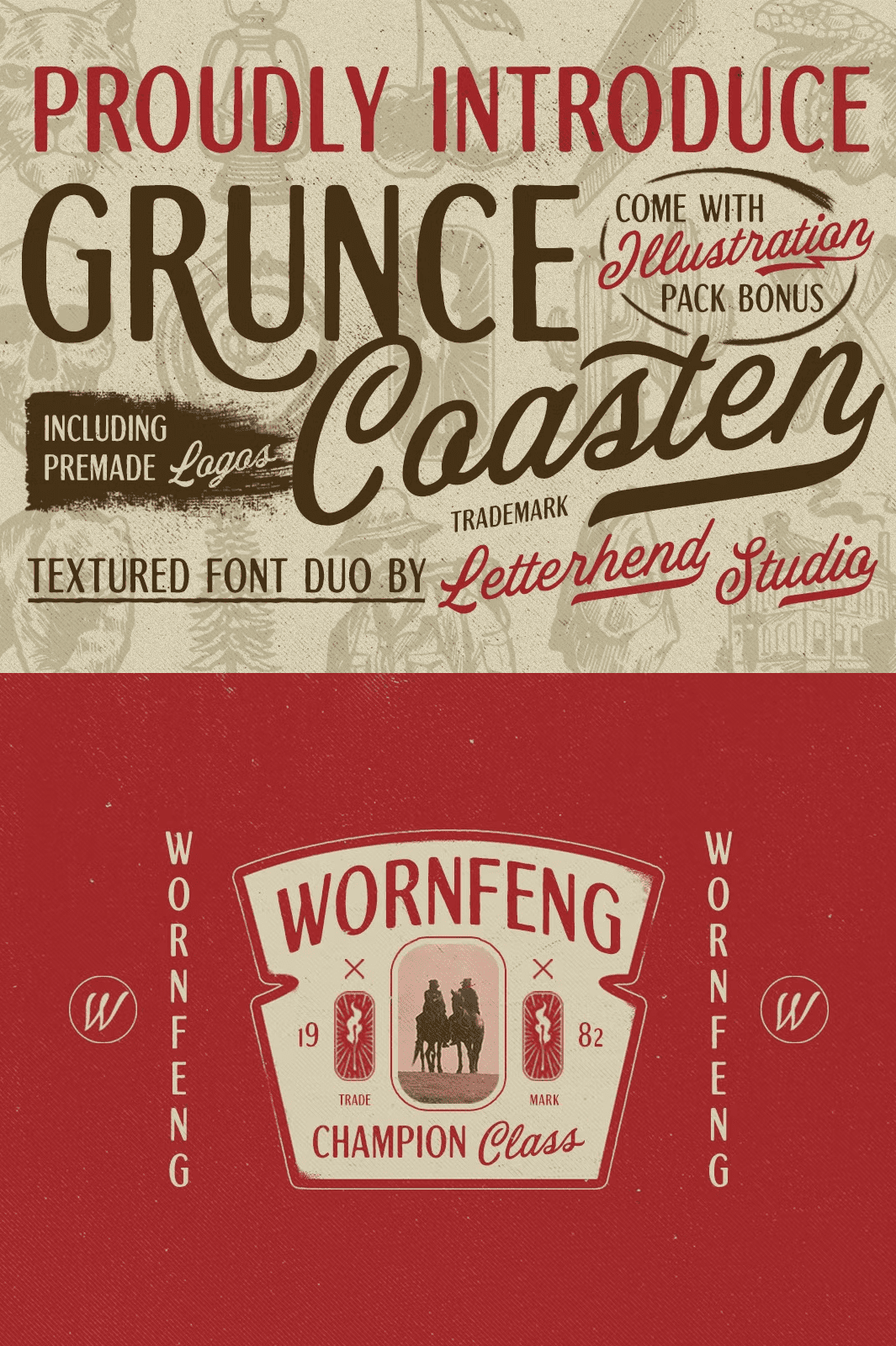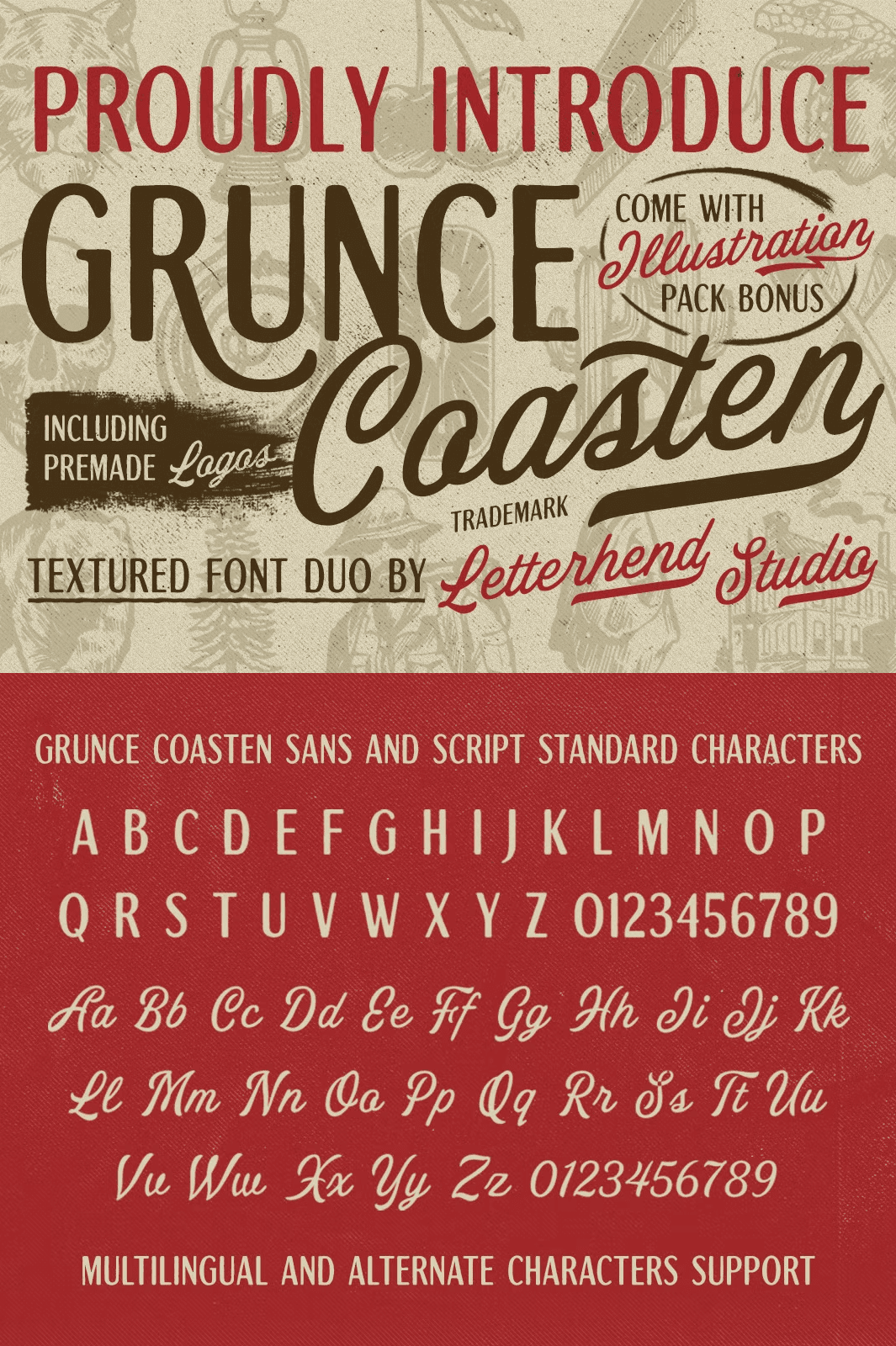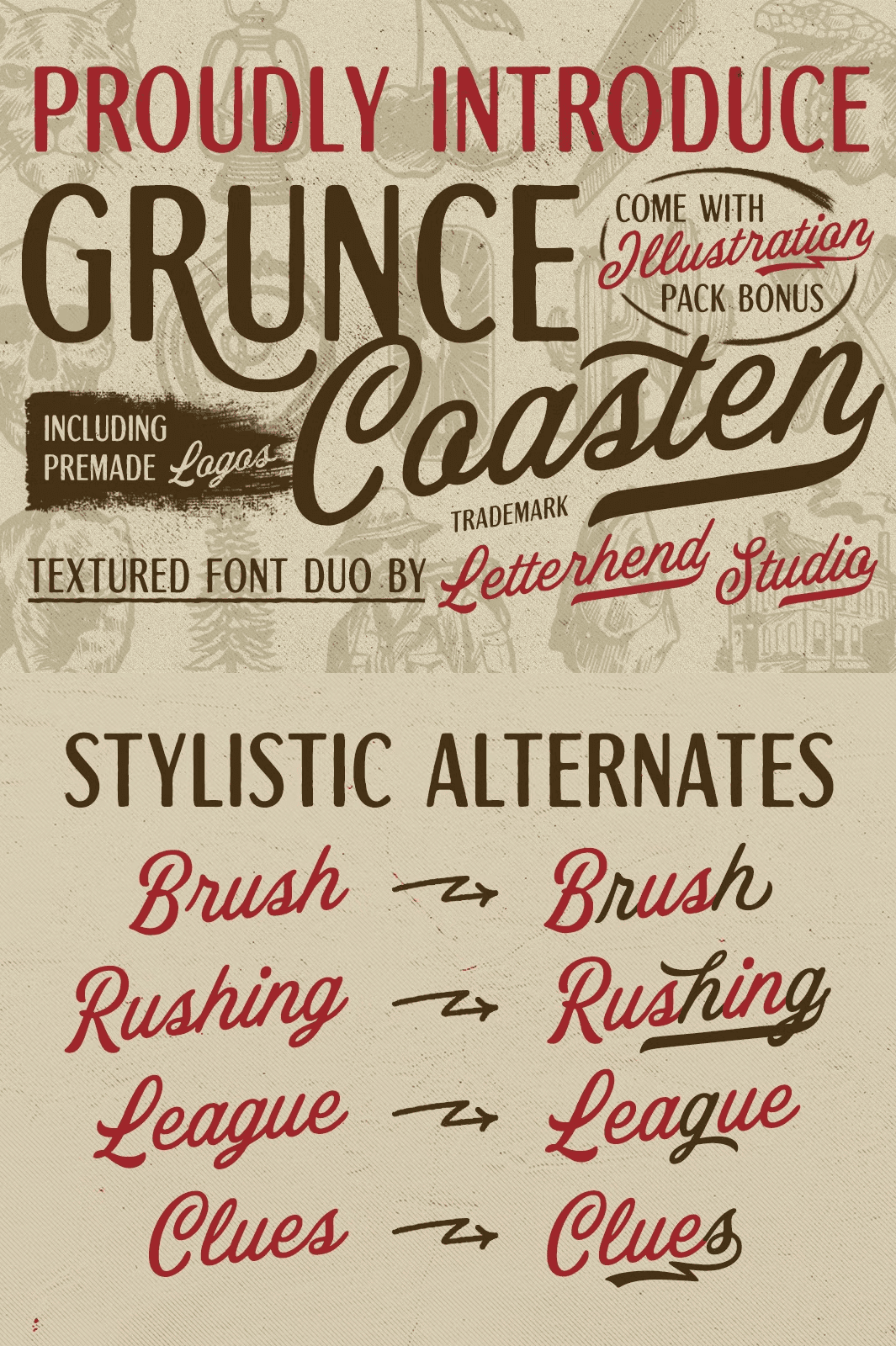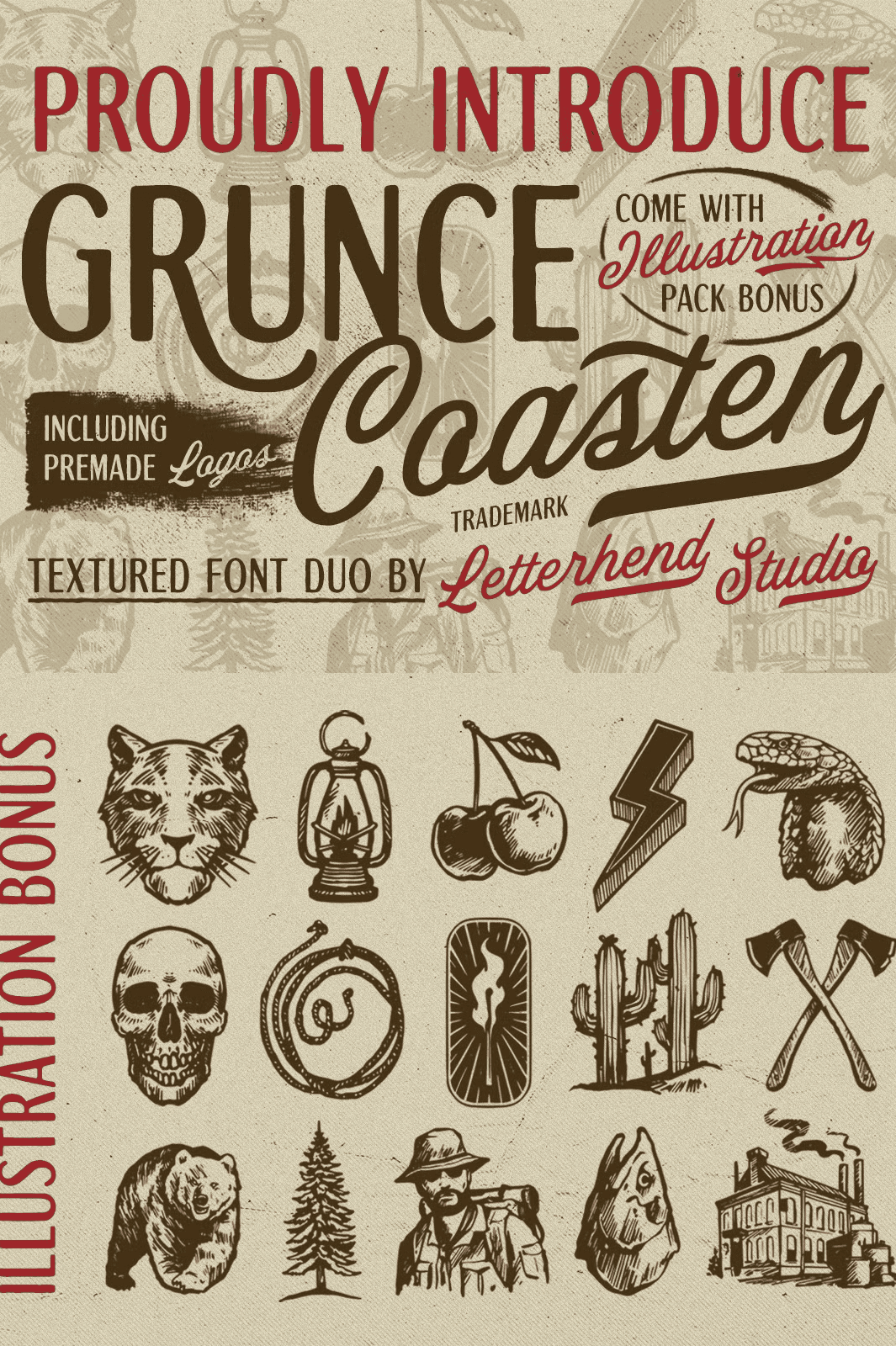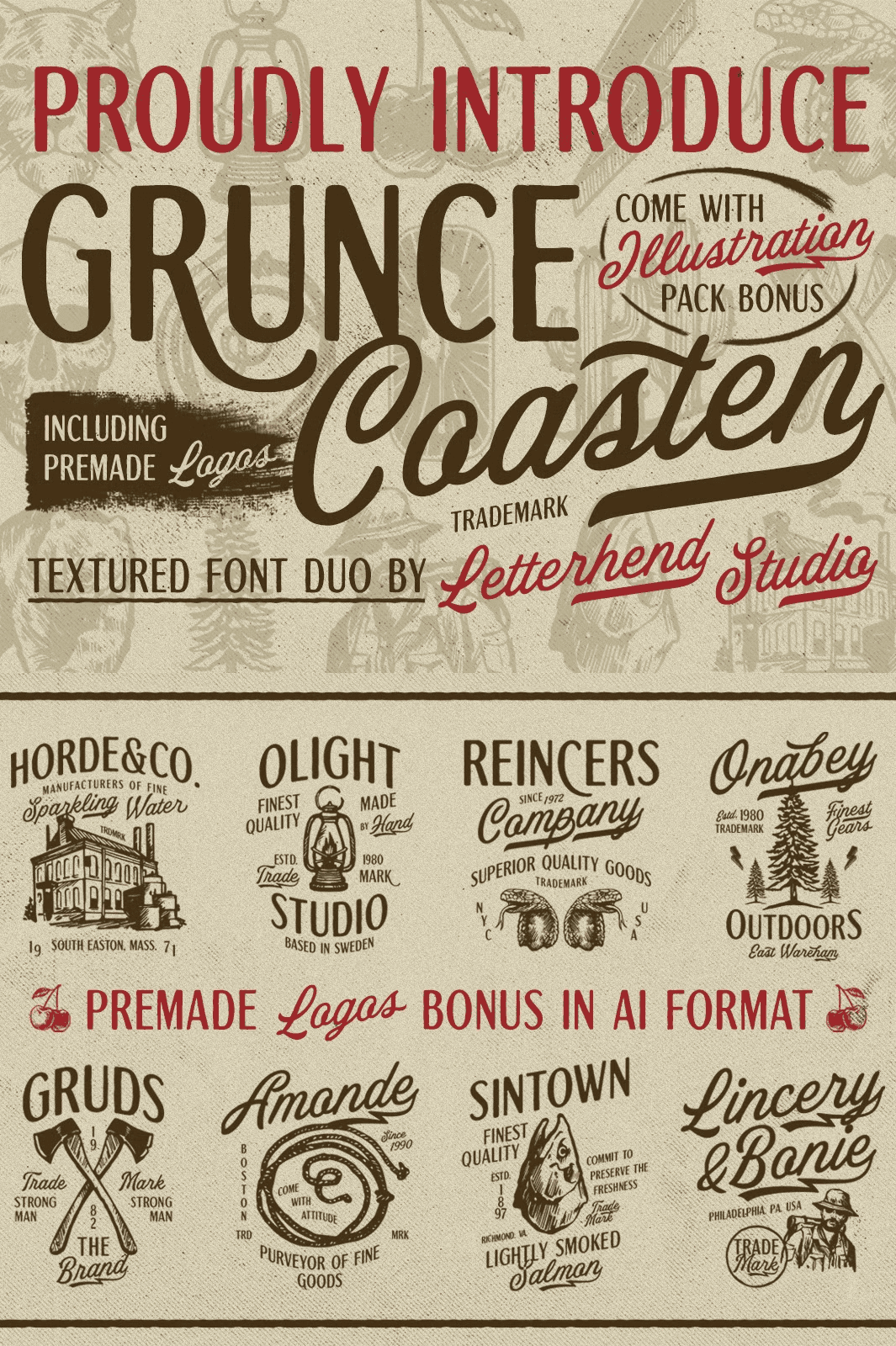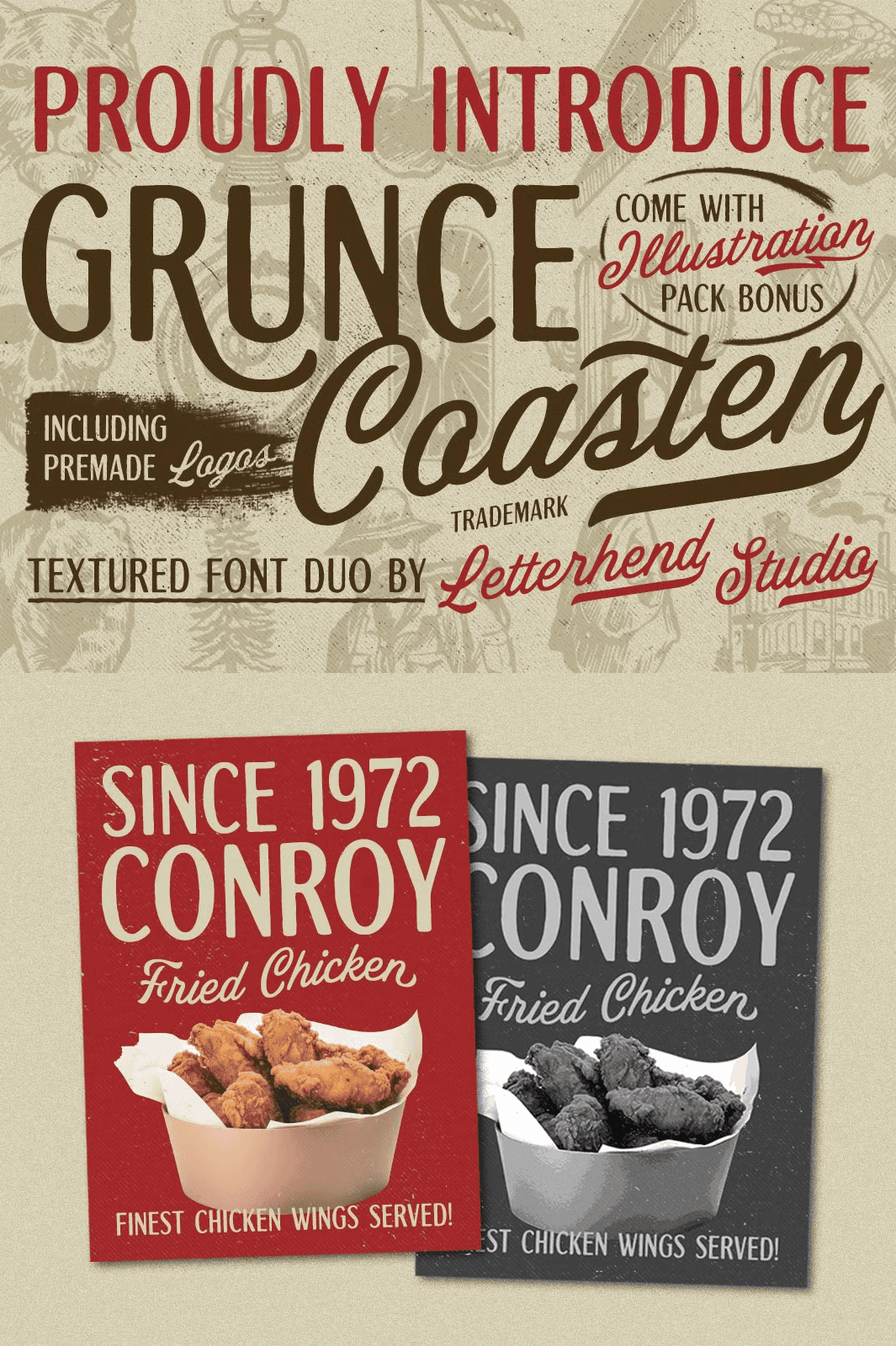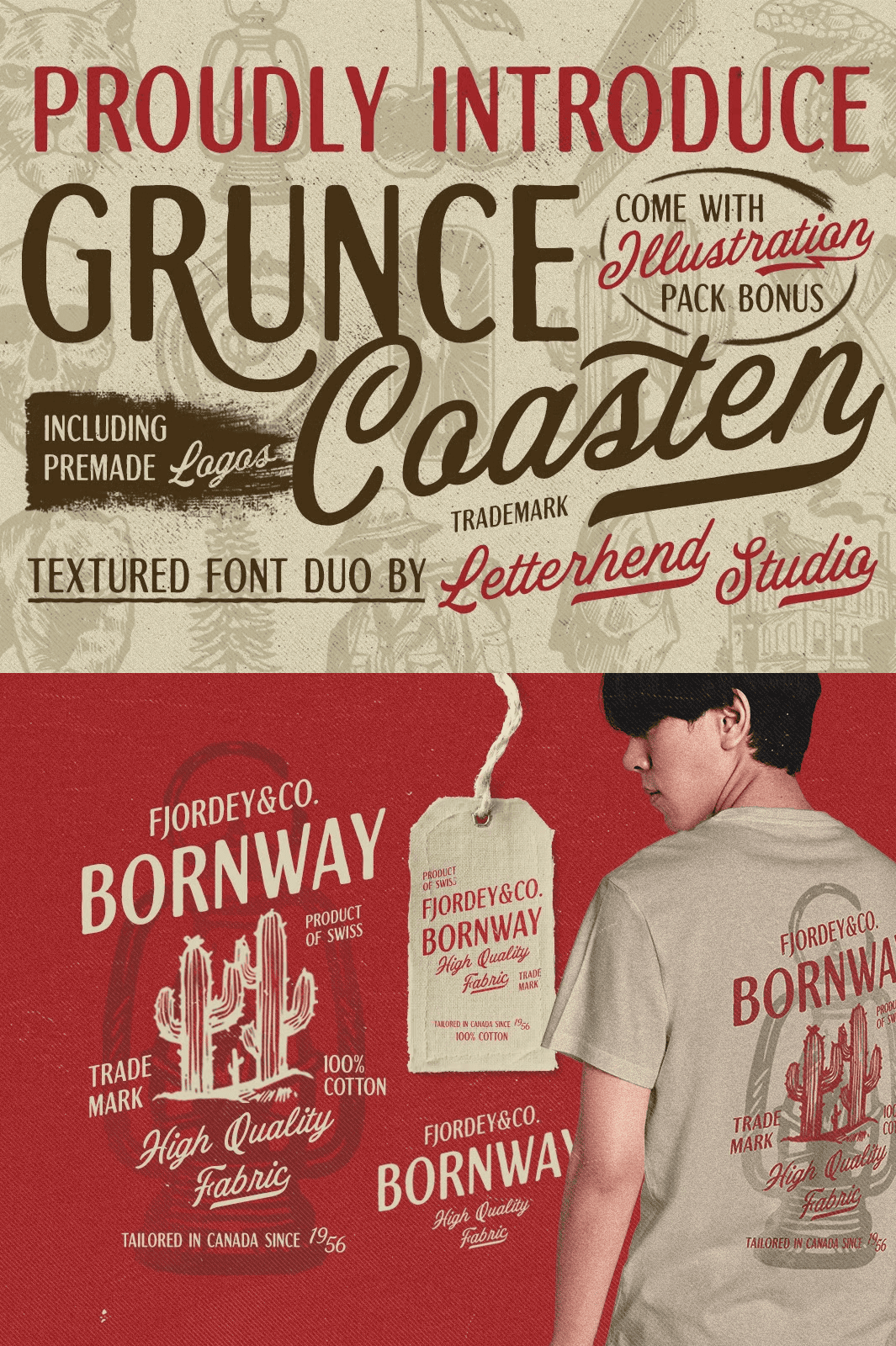
Grunce Coasten Font Duo
Elevate Your Design with a Timeless Font Duo That Speaks Volumes
Transform your creative projects with **Grunce Coasten**, a meticulously crafted vintage font duo that fuses the soul of classic typography with contemporary versatility. This bold typographic pairing features a **sophisticated script** paired with a clean, balanced **sans serif**, delivering a harmonious contrast that commands attention and conveys timeless sophistication. Whether you’re designing for brands, invitations, or editorial layouts, Grunce Coasten brings character, elegance, and a curated sense of heritage to every letter.
The script component captures the fluid grace of hand-drawn lettering from bygone eras, while the accompanying sans serif provides clarity, structure, and modern alignment. Together, they form a powerful duo that works seamlessly across a diverse range of applications from high-end packaging and fashion branding to wedding invitations and magazine covers.
Rich Feature Set for Professional-Grade Typography
Grunce Coasten isn’t just visually compelling it’s technically robust and built for serious designers. Every element has been optimized for performance, usability, and style consistency:
Full uppercase and lowercase support – Includes standard Latin characters, numerals, punctuation, and diacritics.
Alternate characters and ligatures – Access dozens of stylistic alternatives to break monotony and enhance uniqueness.
Multilingual support – Works across European languages with proper glyphs for French, German, Spanish, Italian, and more.
PUA encoding – Ensures easy access to special characters and bonus illustrations without requiring complex keyboard navigation.
Bonus illustrations included – Enhance your designs with hand-drawn embellishments that elevate branding, stationery, and digital art.
This feature-rich foundation empowers you to create rich, layered compositions with confidence and precision.
Unleash Creativity Across Every Design Application
Grunce Coasten thrives in environments where personality meets professionalism. Its vintage charm is not limited to nostalgia — it’s a **modern tool for expressive storytelling**.
Logos & Branding – Craft distinctive brand identities with a handcrafted, authentic feel.
Headlines & Display Typography – Make powerful visual statements in magazines, editorial layouts, or social media banners.
Invitations & Greeting Cards – Perfect for wedding, birthday, and corporate event invites that demand elegance and detail.
Stationery & Packaging – Apply across product boxes, labels, business cards, and branded envelopes for a cohesive visual language.
Fashion & Beauty – Ideal for cosmetics, perfume brands, and fashion labels seeking a refined, heritage-inspired aesthetic.
Advertising & Promotions – Stand out in print and digital campaigns with a font that feels both classic and contemporary.
Use Grunce Coasten to build visual narratives that resonate emotionally and memorably.
With **Grunce Coasten**, you’re not just selecting a font you’re choosing a design philosophy. A commitment to craftsmanship, character, and timeless appeal. Whether you’re a designer, artist, or marketer, this duo gives you the tools to tell your story with confidence.